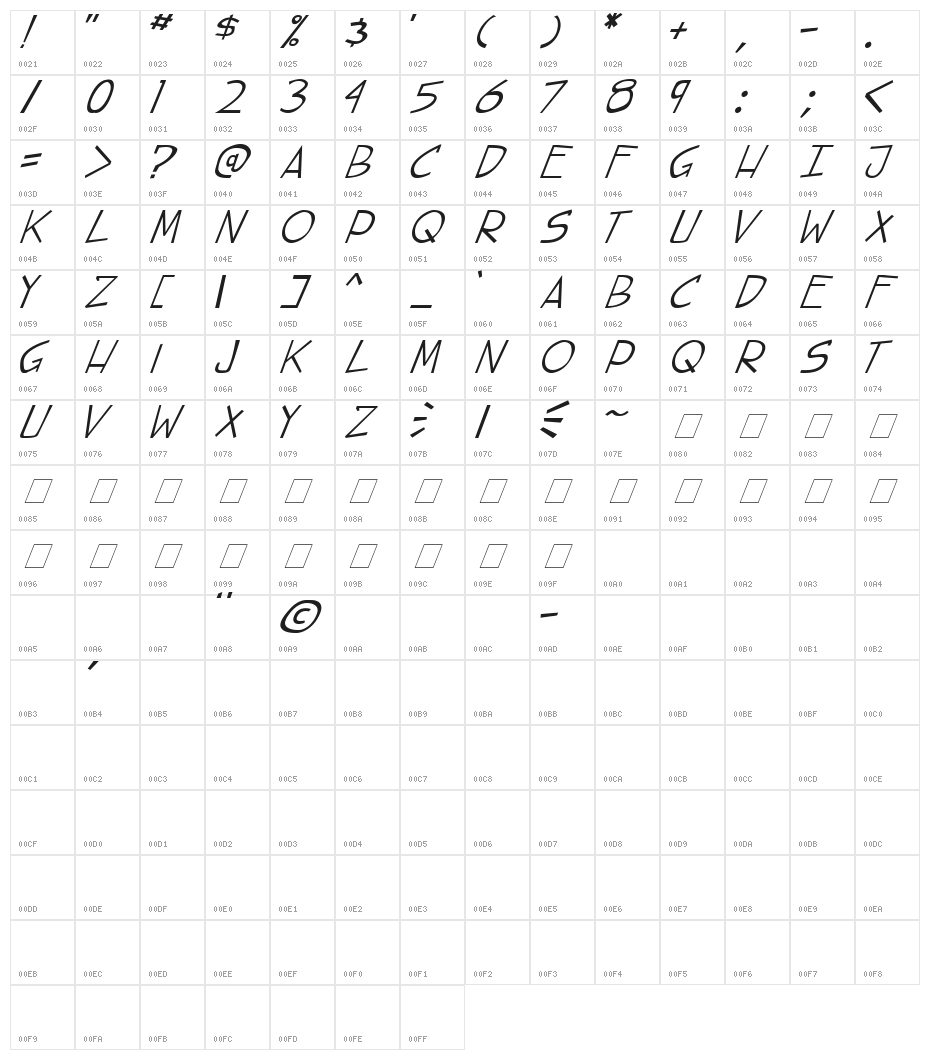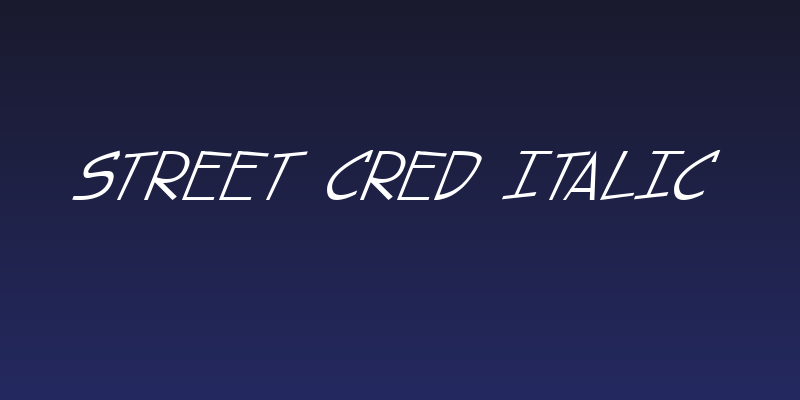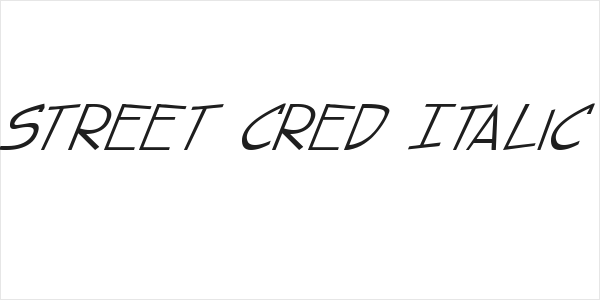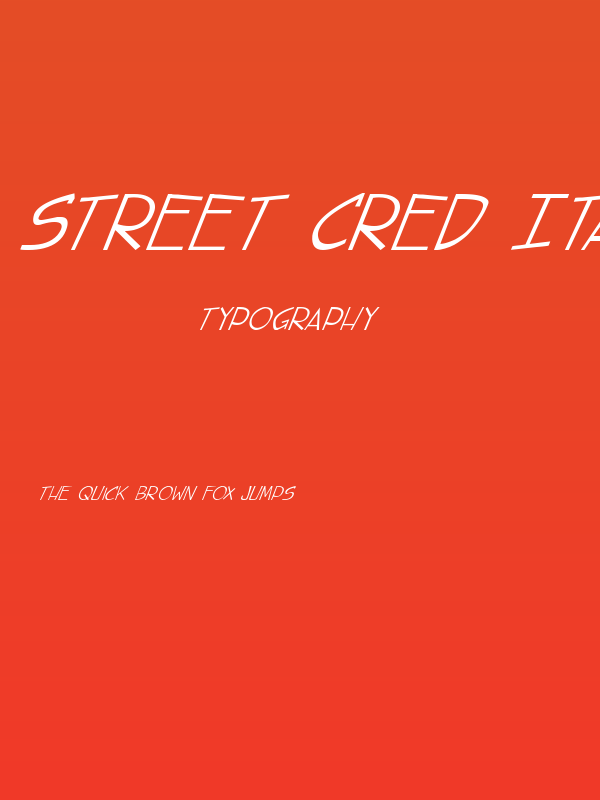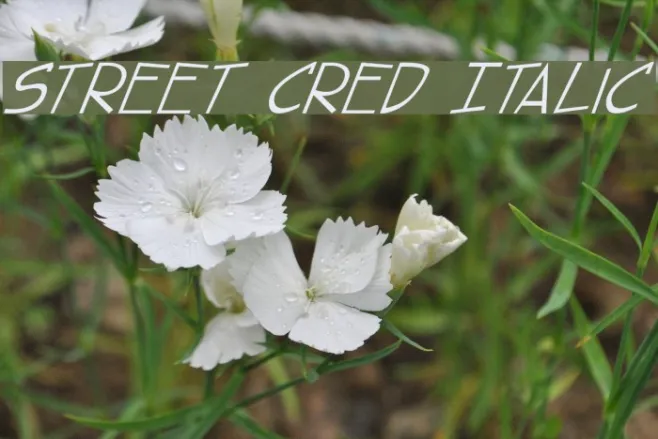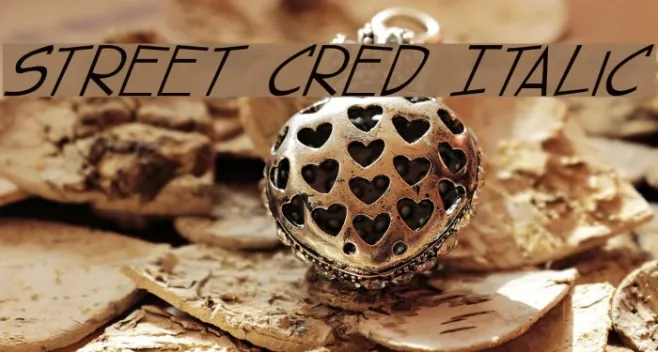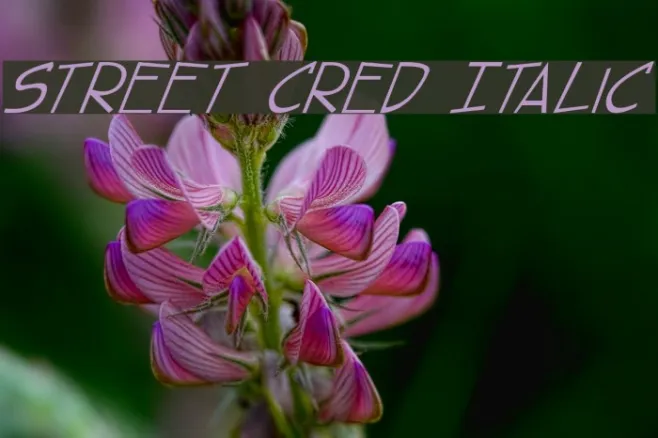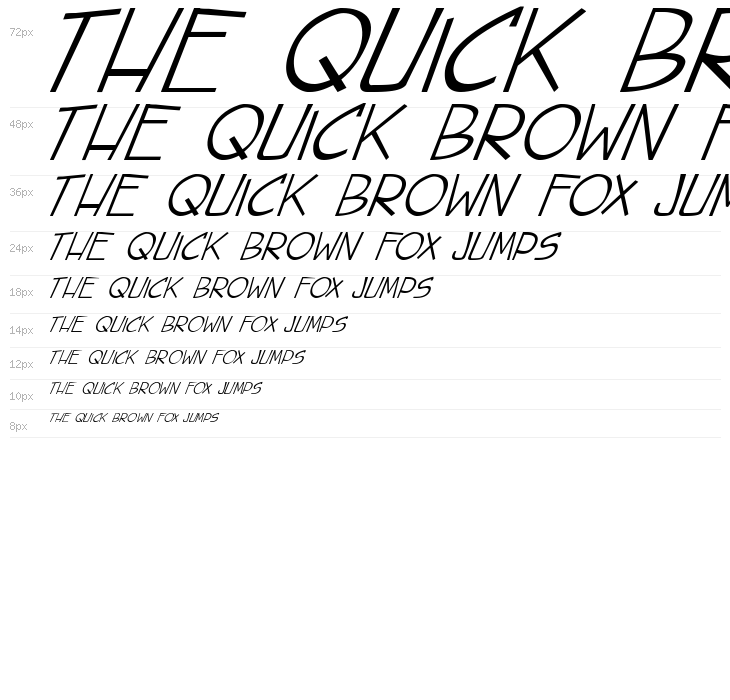
street cred Italic Font
street cred Italic Description
This font features a dynamic and energetic italic style, characterized by its slanted and elongated letterforms. The strokes are smooth and fluid, giving a sense of motion and speed. The uppercase and lowercase letters maintain a consistent slant, enhancing the overall cohesiveness of the design. The numerals and special characters follow the same stylistic approach, ensuring uniformity across all glyphs. The font's modern and edgy appearance makes it suitable for projects that require a bold and expressive touch.
| Proposed Projects | Ideal for branding, sports apparel, music album covers, and dynamic advertising campaigns. |